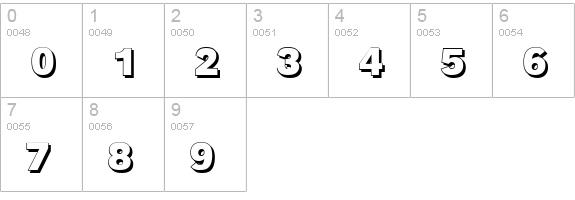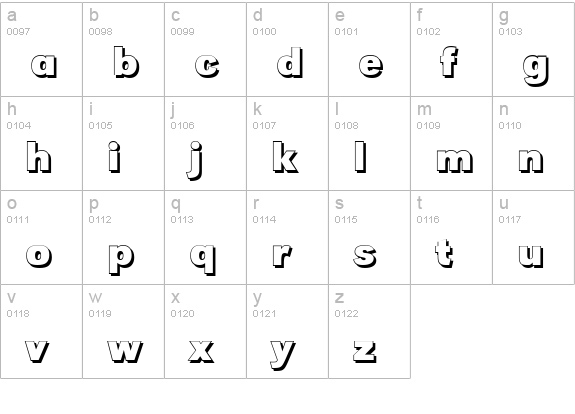
GroteskSh-Bold is a strong, high-contrast variant in the GroteskSh typeface family \xE2\x80\x94 well suited to headlines, attention-grabbing titles, and strong calls-to-action.
GroteskSh-Bold is a bold and striking typeface that commands attention with its clean lines and modern aesthetic. This versatile font is perfect for headlines, titles, and branding projects that require a strong and impactful look. The bold weight of GroteskSh-Bold makes it ideal for making a statement and standing out from the crowd. What's even better is that GroteskSh-Bold is available for free download at FontsMarket.com. This means that you can easily access this stylish font and use it in your design projects without any cost. Whether you're working on a website, poster, logo, or any other creative project, GroteskSh-Bold is sure to add a touch of bold sophistication. Download it now and elevate your designs with this eye-catching typeface.